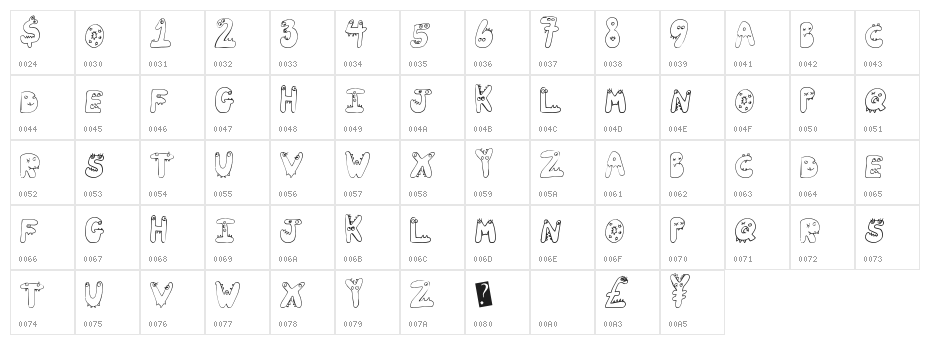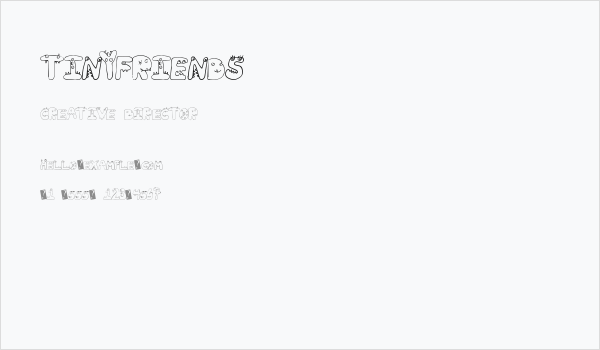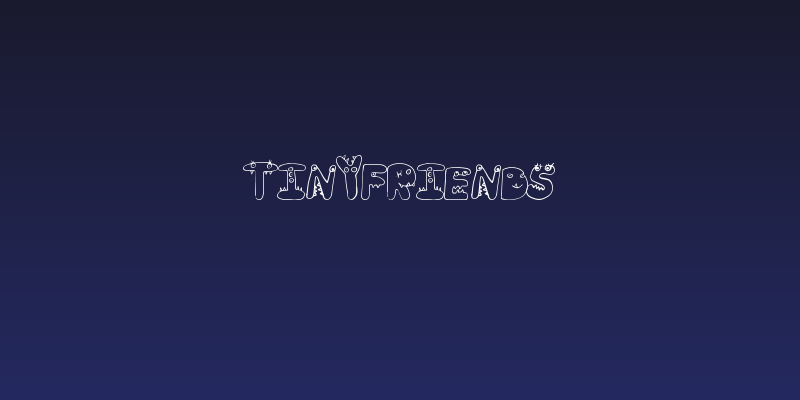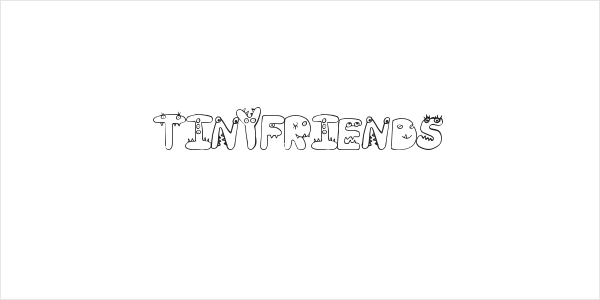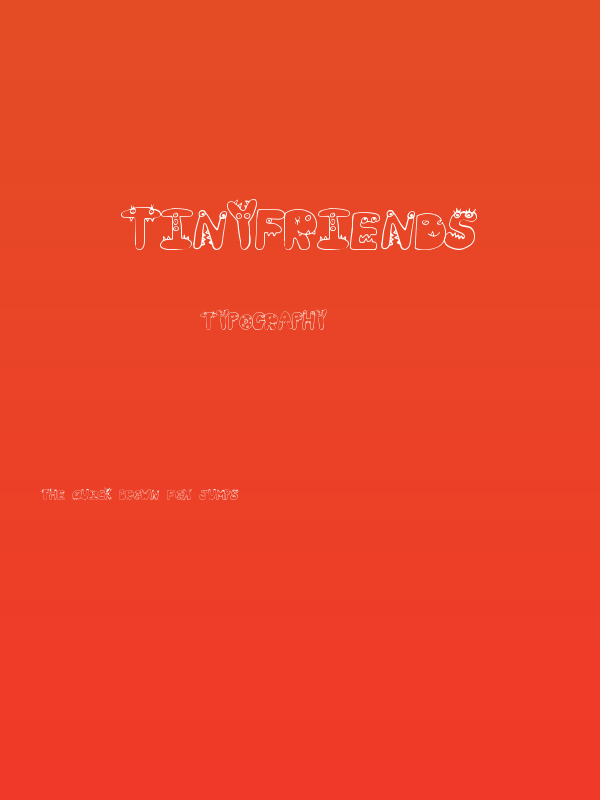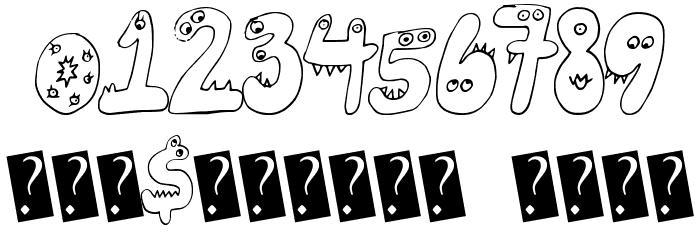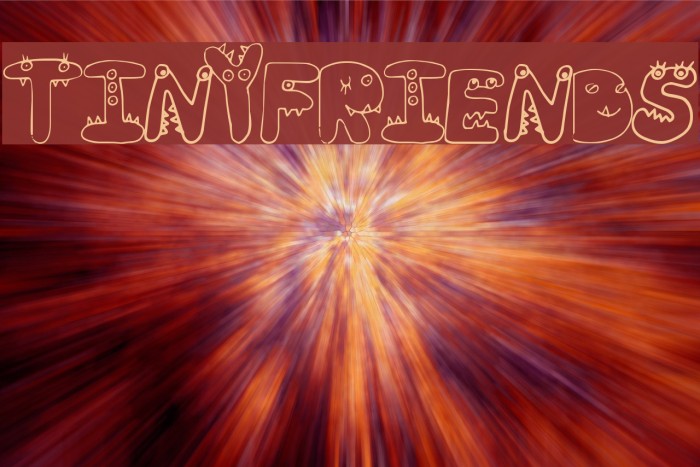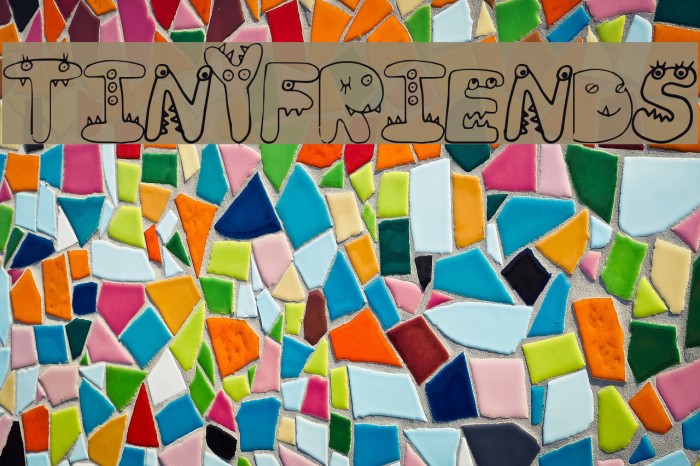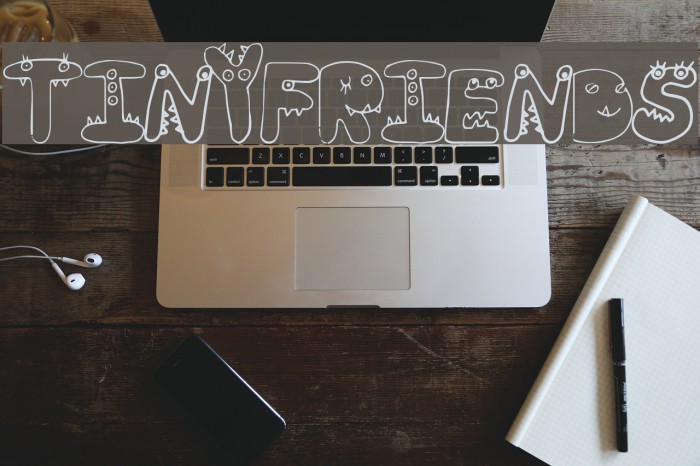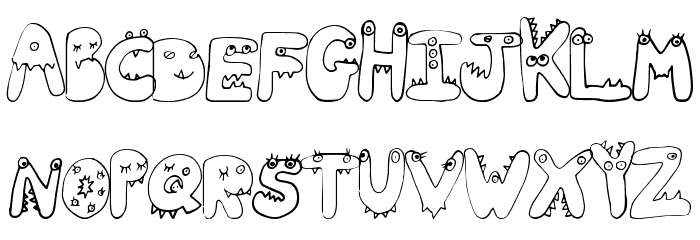
TinyFriends Font
TinyFriends Description
This whimsical and playful font features characters with quirky, cartoon-like eyes and expressions, giving each letter a unique personality. The design incorporates elements such as teeth, eyes, and various facial features, making it ideal for children's projects or playful branding. The characters are bold and rounded, with a hand-drawn feel that adds to their charm. The numbers and special characters continue the theme, ensuring a cohesive look across all elements. This font is perfect for projects that require a fun and engaging visual style.
| Proposed Projects | Ideal for children's books, playful branding, party invitations, and educational materials. |